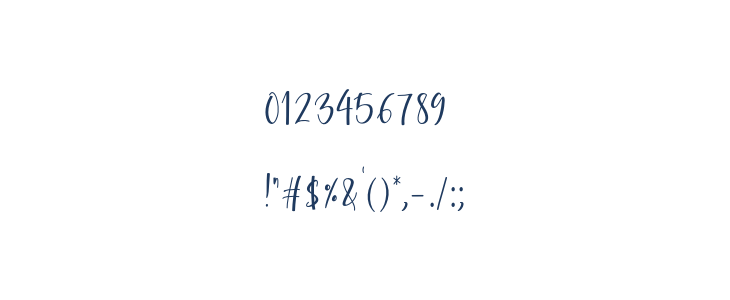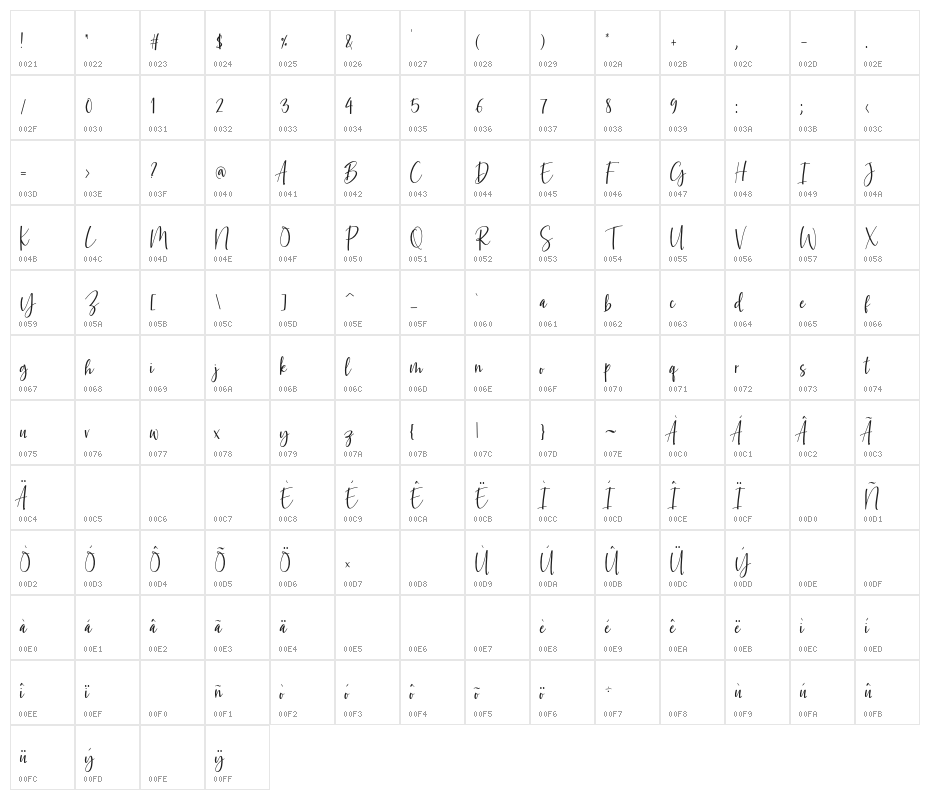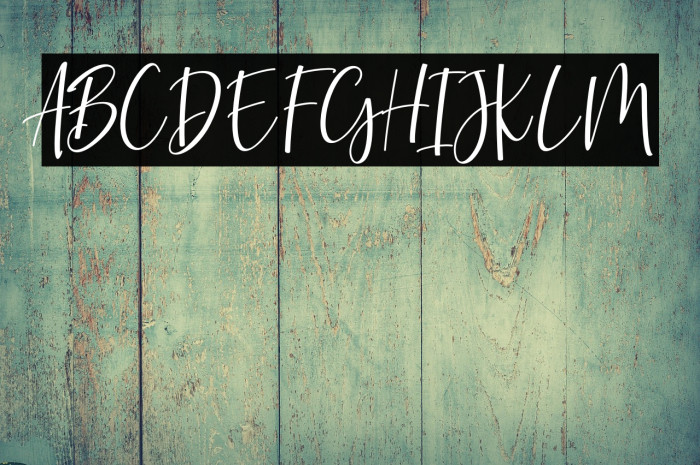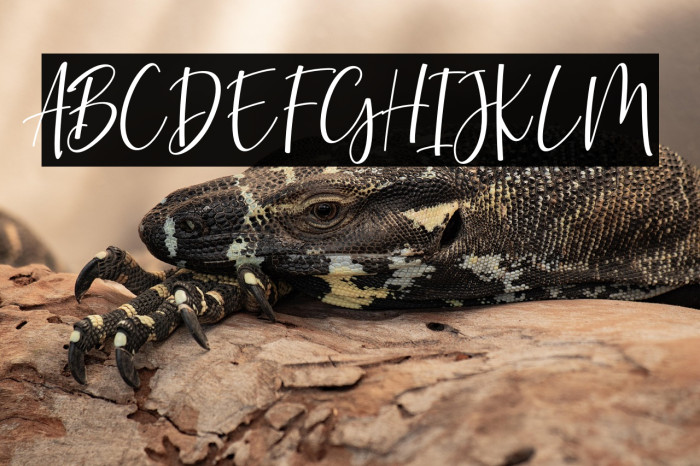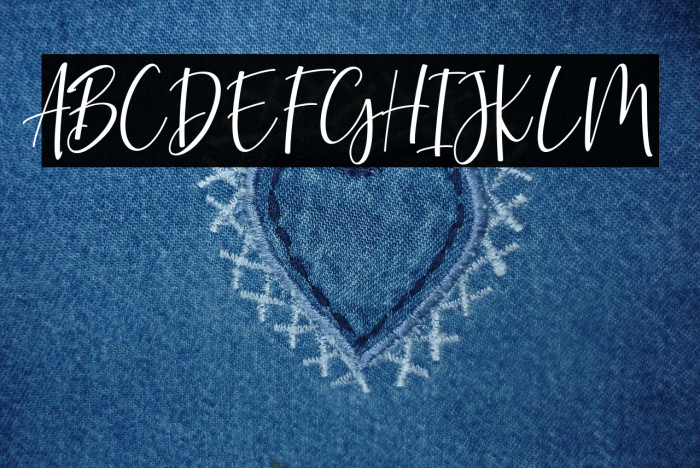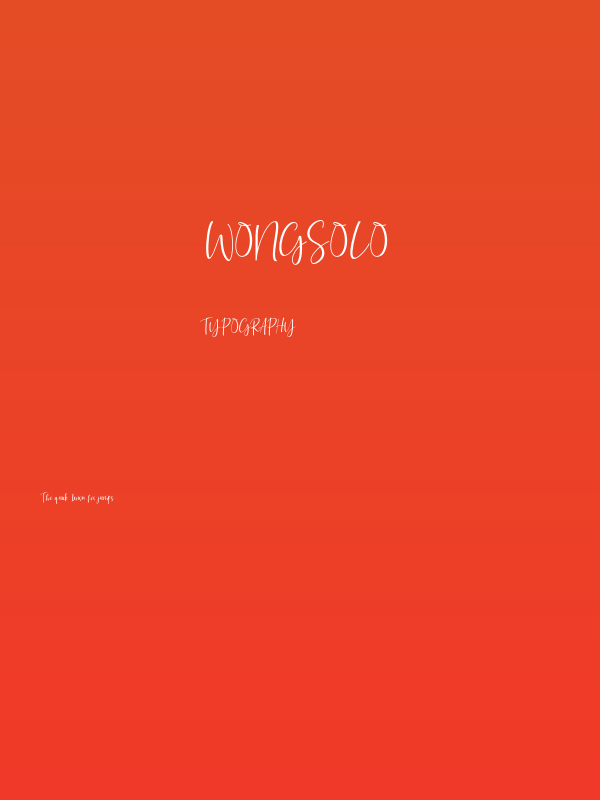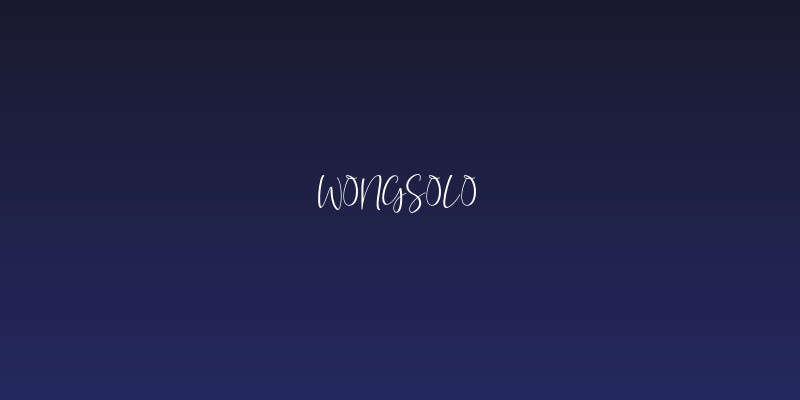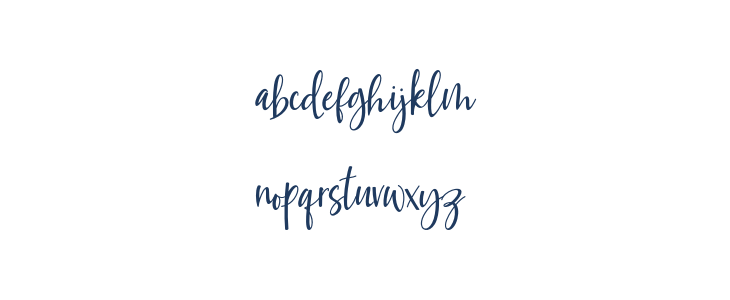
wongsolo Font
wongsolo Description
This font features a lively and flowing script style that exudes elegance and creativity. The uppercase letters are tall and slender, with graceful curves and varying stroke widths that add a dynamic feel. The lowercase letters maintain a consistent style, with smooth connections and a slightly more compact form. The numerals are well-balanced, matching the overall aesthetic with their fluid lines. Special characters are thoughtfully designed, integrating seamlessly with the rest of the font. This font's handwritten quality makes it perfect for projects that require a personal touch.
| Overall Style | Elegant, Artistic |
| Proposed Projects | Ideal for wedding invitations, greeting cards, branding, and artistic projects requiring a personal touch. |